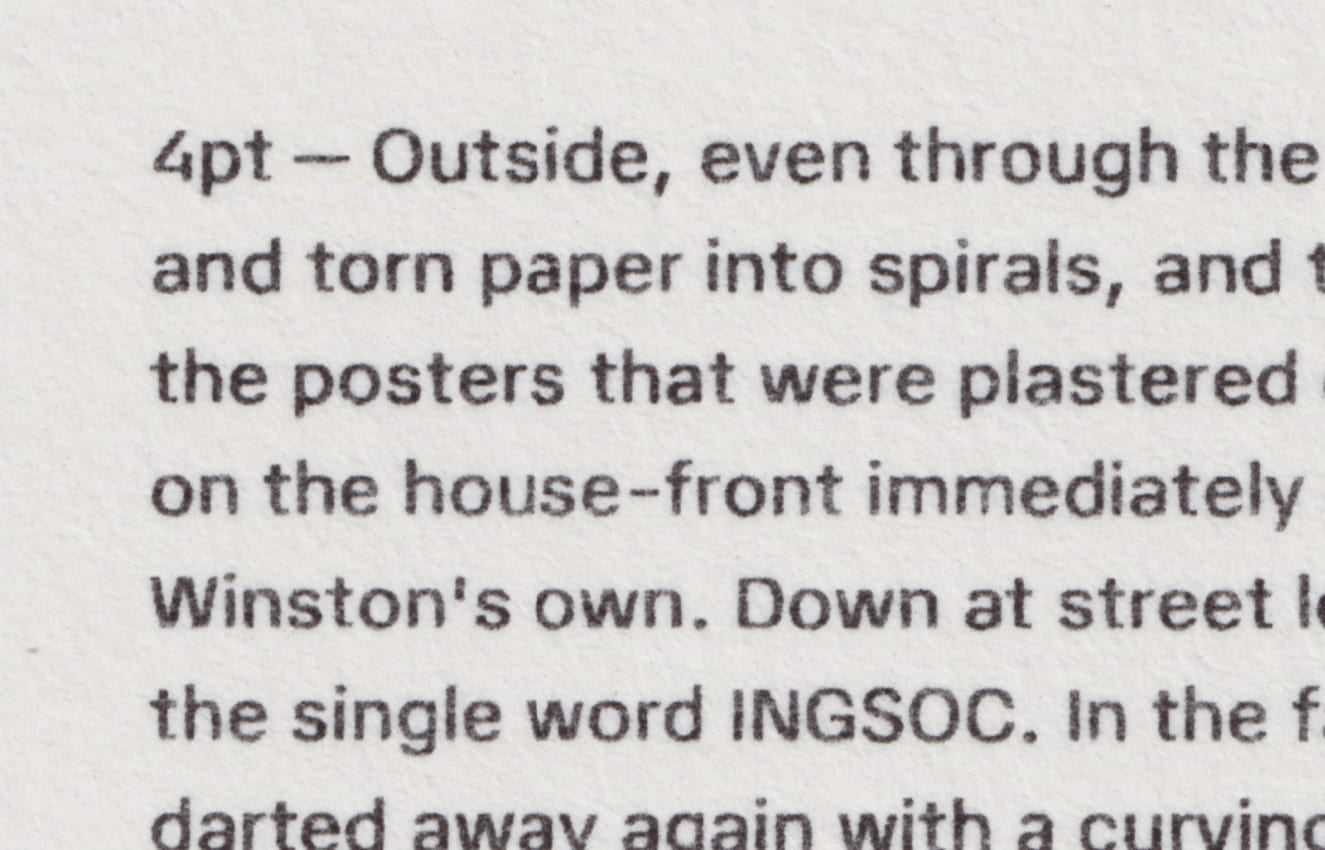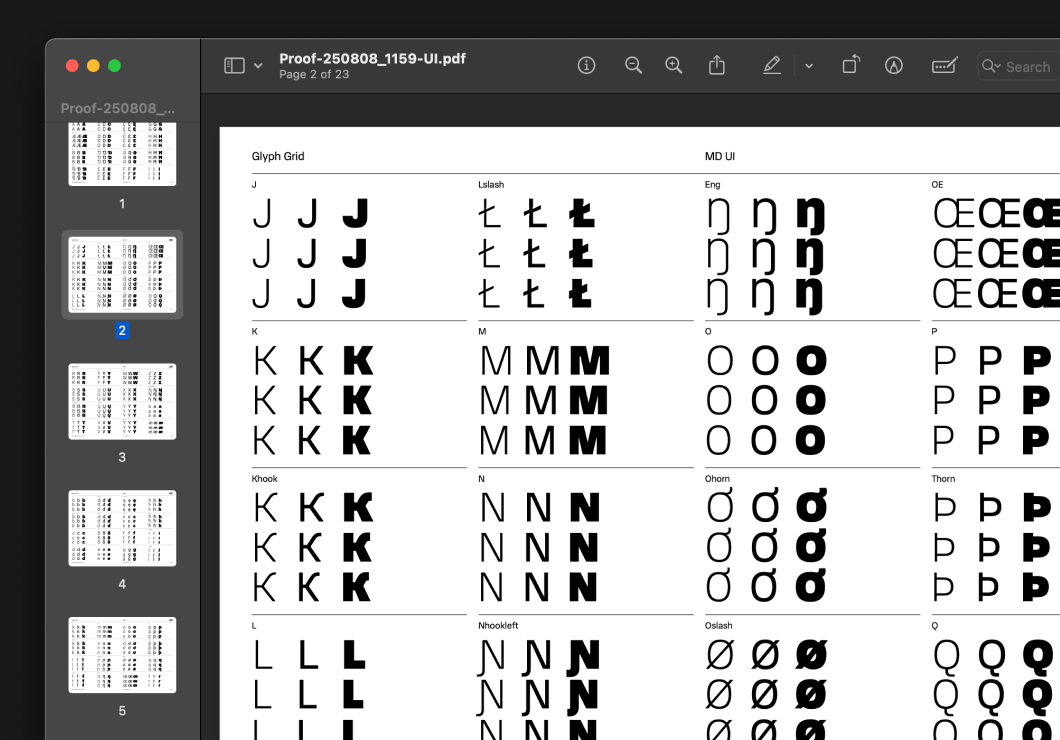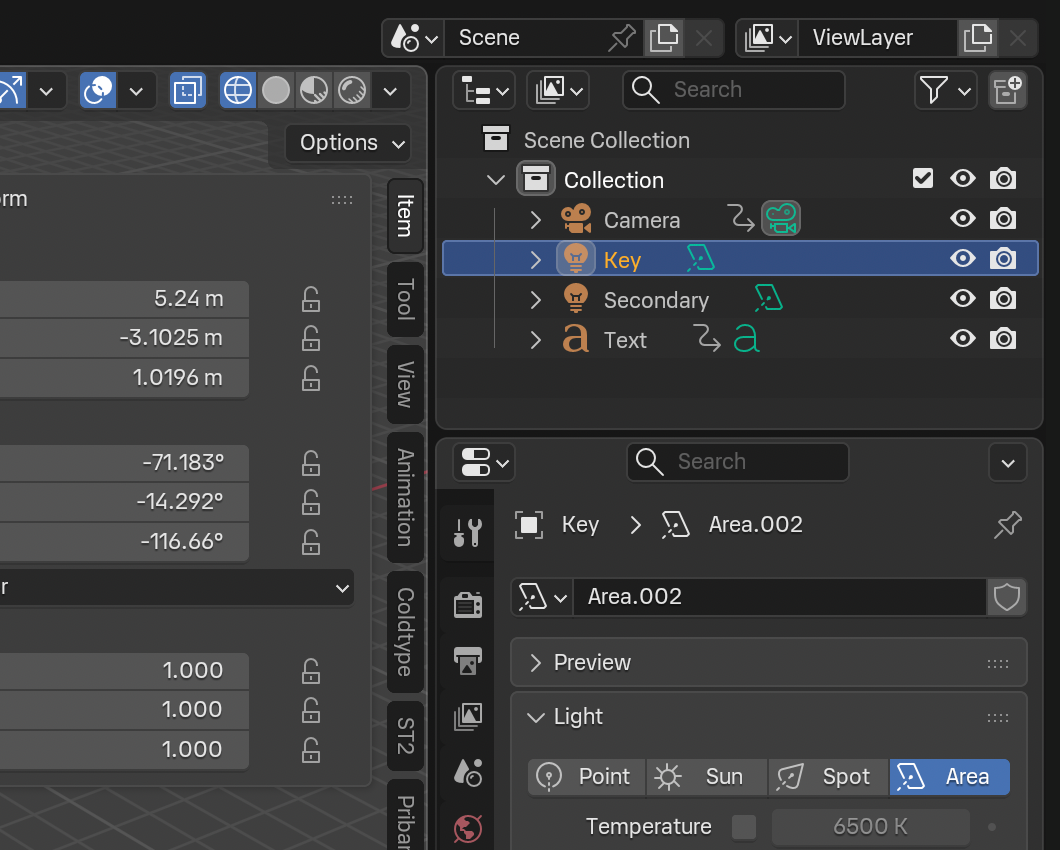
MD UI: a Typeface for Interfacing
The process behind MD UI, a typeface that projects the International Typographic Style one step into the future. A neo-grotesque fine-tuned for maximum performance at every scale.
I kill a lot of typefaces. It’s not that I don’t like them — quite the opposite. I think they deserve better. I love type too much to look at a half-baked idea and call it close enough, and yet sometimes a design’s full potential is simply out of reach. I resurrect typefaces, occasionally, when I find I’ve grown tall enough to try again.
Any designer must eventually reckon with this feeling. There’s no faster path to burnout than the stubborn refusal to admit defeat: you learn to recognise quality much sooner than you can achieve it. So you learn to pick your battles, to put some projects back in the drawer and come back later.
This is why I’m generally hesitant to show a design before it’s done. It’s not for fear of someone else copying the idea, but out of a reluctance to let people down when a concept they become attached to ends up as one of the many that never makes it.
The single ‘Regular’ style of MD IO version 0.1.
The first available version of MD IO. A single style with 232 glyphs.
All sixteen upright and italic styles of MD IO version 1.0.
MD IO’s v1.0 release, a suite of sixteen styles with 740 glyphs in each.
In early 2021, I released MD IO as a work-in-progress typeface via Future Fonts. I’d started drawing it a few months earlier, and I was confident both that finishing the design would be feasible, and that feedback from real-world users would be key to its success.
The brief for IO was simple: legibility above all else. Rather than readability, which refers to how comfortable a typeface is to read overall, legibility refers to how easily a single character can be identified in isolation. Does the 6 look like an 8 when you’re not wearing your glasses? Is that a zero or a capital O?
The number 1, lowercase l, and capital I from MD IO Semibold.
An accentuated diagonal ‘flag’ distinguishes the digit 1 from the lowercase l (which has no upper-right serif) and capital I (which does).
Capital B, number 8, and number 6 from MD IO Semibold. Their shapes are more distinct than typical for many typefaces in the genre, and overall more legible.
The number 8 is visibly narrower at the top to distinguish it from the capital B, while the 6 uses a geometric construction for even greater distinction.
Three similar oval-shaped glyphs from MD IO. The presence of a dot and slash in the centres of the two on the right identifies them as zeroes, while the leftmost shape is an O.
MD IO includes two variants of the digit 0, either dotted or slashed, to avoid confusion with the cap O.
A colon, semicolon and exclamation mark from MD IO. The comma’s shape is notably exaggerated and sharp.
Comma, period, and other punctuation glyphs are larger than normal compared with letters, and their shapes are emphasised.
There are many reasons to release a typeface on Future Fonts, and to be transparent, in 2021 the ability to begin selling IO before needing to finish the whole typeface was a major one. Even more valuable in the long term though was the feedback I got from real-world users: which glyphs are working, and which still need work. Some of the original letterforms were unambiguous, but not intuitive. Others were obvious up close, but in smaller sizes could be misread.
For close to three years, developing IO was a process of continual iteration and improvement, with many different people (myself included) testing the design and documenting any potential issues. And all the while, behind the scenes, that same feedback was helping to inform another, much more ambitious project.
MD UI has danced at the edge of my abilities ever since it was conceived, on the same afternoon I began drawing MD IO, in the autumn of 2020. To tell the truth, I did not release it on Future Fonts (or even talk about it publicly), because I didn’t know if I could pull it off. It’s the most complex project I’ve ever worked on by a wide margin. Over the past five years, there have been many times when I considered letting it go, dropping it in the archive and taking it off the to-do list.
And yet I didn’t. As MD IO became more popular, and as it developed into a sizeable type family in its own right, UI grew with it. Together with Luke Charsley, we’ve taken the lessons of IO, along with the experience from countless other designs we’ve worked on, and quietly distilled them into something I’m truly proud of. Let me, finally, tell you about it.
MD UI uppercase, lowercase, and numbers.
When we think about reading, we tend to picture books, or magazines, or business reports. Blocks of text, traversed from beginning to end. There’s another kind of reading, though, one which I think we do much more often without really noticing it.
If we had another five years, would MD UI look different? There are plenty of things I might add — with 160,000 characters in Unicode, language support is never complete. And yet, even with another decade to work on it, I wouldn’t want to change the fundamentals at all.
This is the best car we can make.